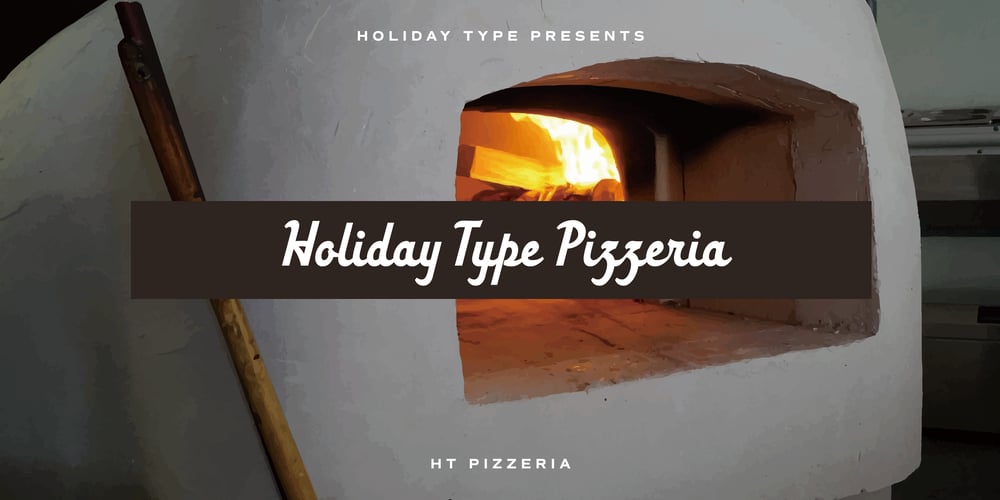
HT Pizzeria Font Family was designed by Ryoichi Tsunekawa and published by Dharma Type. HT Pizzeria contains 1 styles and family package options. Ht Pizzeria is strong looking script for eye-catching part. Holiday Type Project offers retro hand drawing scripts. Inspired by retro script on shopfront lettering, wall paint advertisements in Italy around 1950s. Check out the script fonts from Holiday Type!